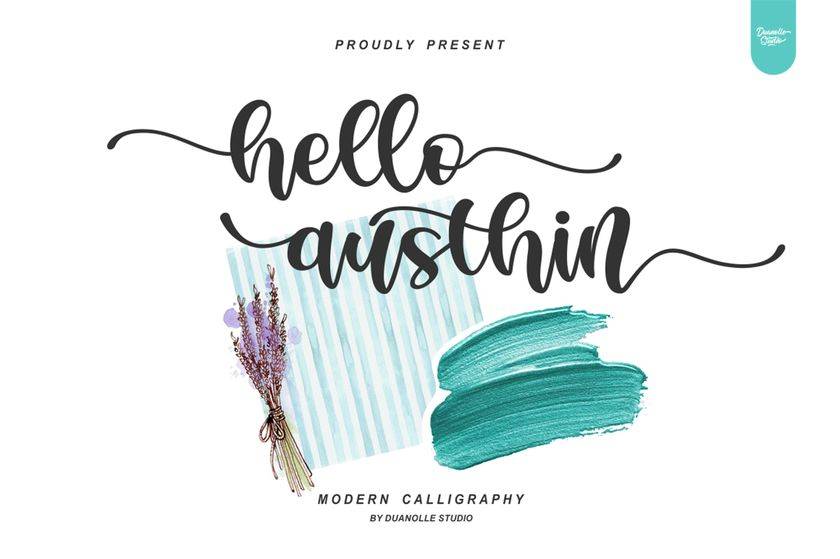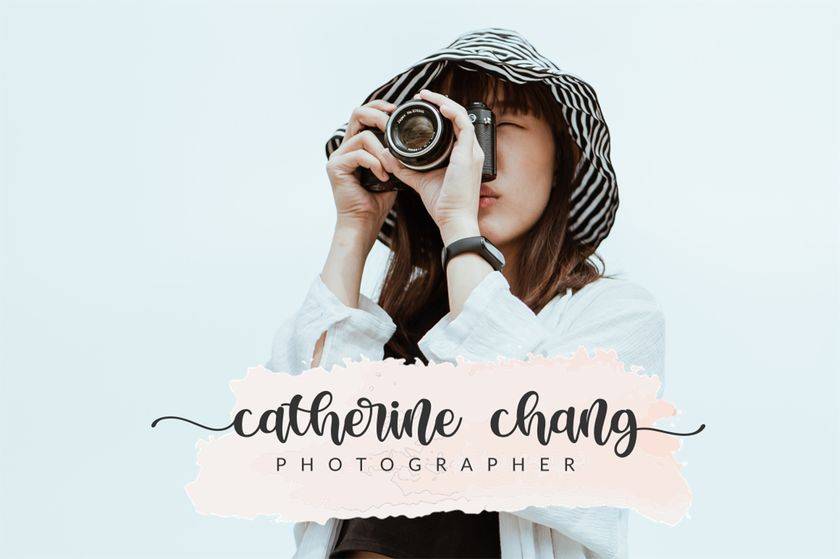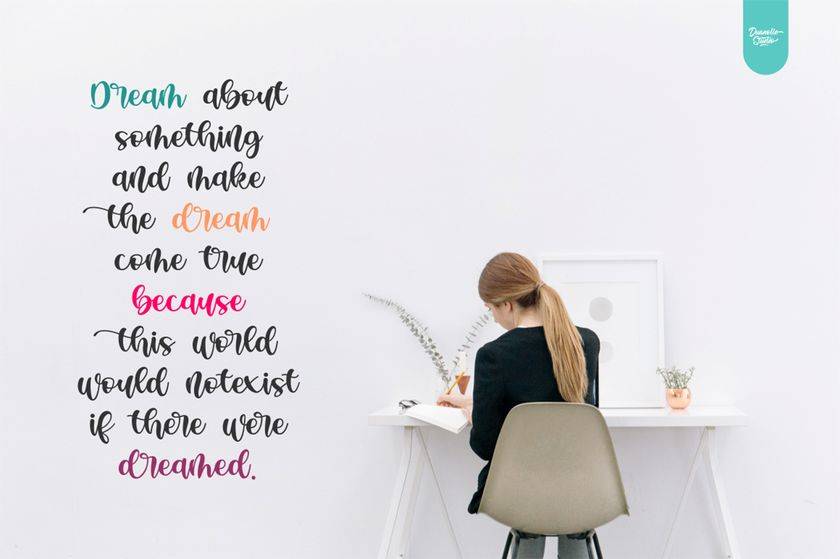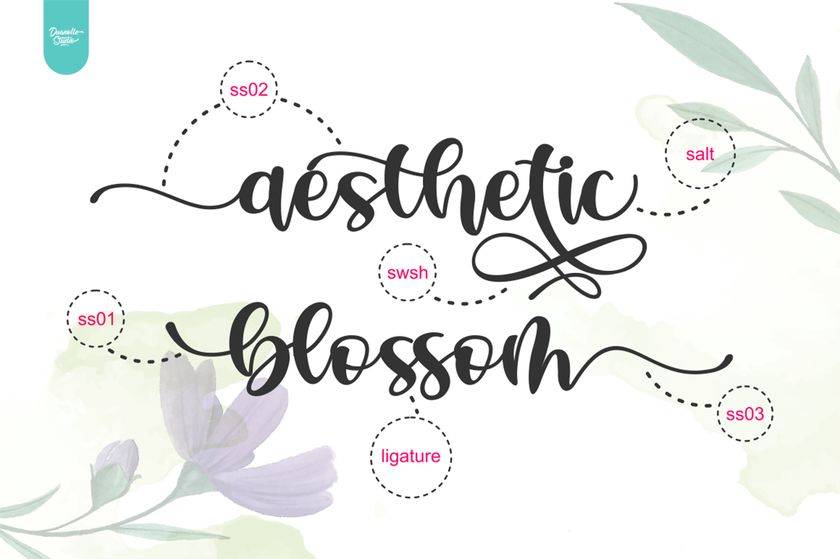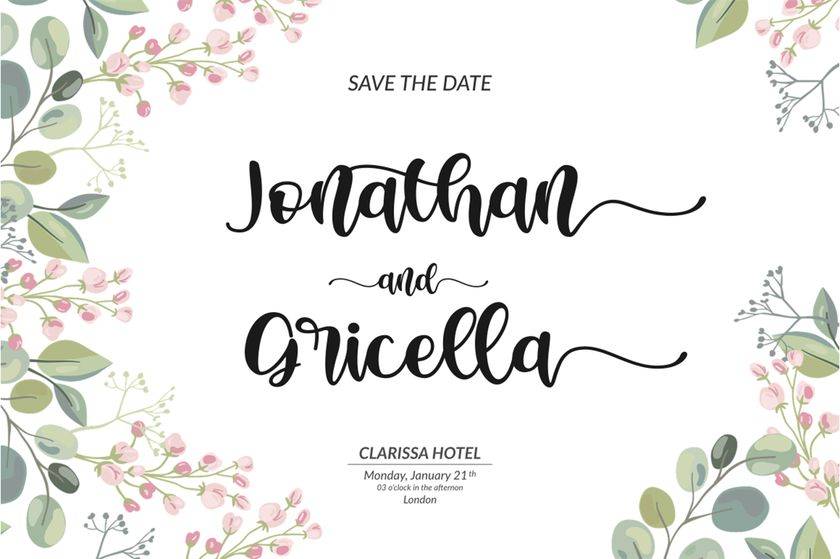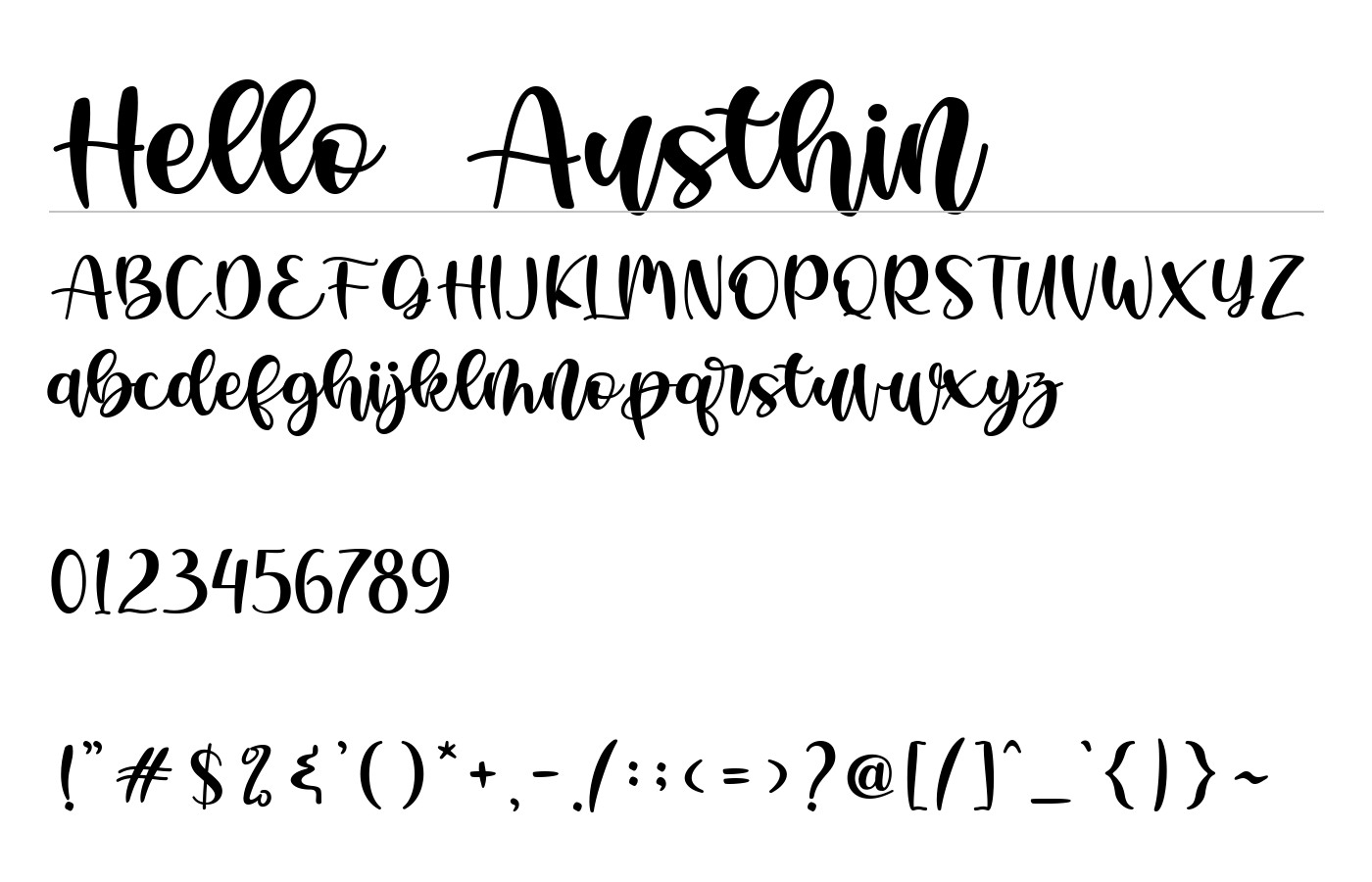
Hello Austhin is a lively and charming script font with a handwritten feel, featuring smooth, flowing strokes and a moderate weight that balances readability with personality. Its slightly tall x-height and rounded terminals give it a friendly and approachable vibe, making it perfect for casual branding, invitations, and creative projects that seek a personal, warm touch. This font works wonderfully in logos, social media graphics, and headlines where a playful yet elegant style is desired.
Hello Austhin Font
About Hello Austhin Font
| Font family | Hello Austhin Font |
| Designer | Yuliatno |